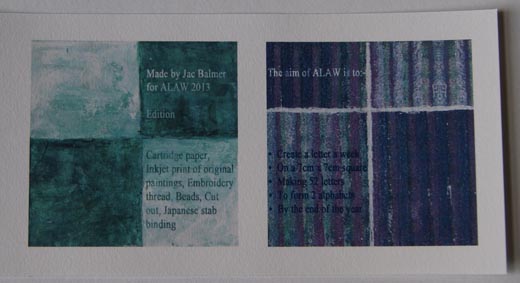
Calligraphytique Letter's #Week 26 First alphabet completed!
This first alphabet is completed! / Le premier alphabet est complet, avec le "Z"!
Je suis bien en retard pour terminer mes lettres de juin,
Une exposition à Chartres, puis vers chez moi, un petit voyage à Bruges en Belgique.
J'ai été très occupée...
Voici donc 4 lettres , et il n'en restera plus que 6.
Je commence aussi à réfléchir à la présentation finale...
Hello,
I am late to finish my letter of June
Exposure to Chartres, then to home, a trip to Bruges in Belgium.
I've been busy ...
Here are four letters, and it will remain more than six.
I'm also starting to think about the final presentation ...
The last six
are u, v, w, x, y and z.
I'm still playing around with a way to present all 26 together, and will post the result soon.
First alphabet finished
Here are the final letters. Separate....
And together.
I’ve used a simple Japanese stab binding to hold the pages
together.
Cranes in Flight
This is the idea I had from the beginning and I am pleased that I was able to achieve something close to what I had envisaged. Again it is with the thought of the origami crane being a symbol of peace through the inspiring story of Sadako Sasaki. In Hiroshima Peace Park there is a statue of Sadako holding a crane with the inscription:
'This is our cry,
This is our prayer,
Peace in the world.'
I have also incorporated one of Sadako's quotes in my presentation.
I have really enjoyed this challenge (although I can't seem to stop making cranes!).
I have decided to send my completed Alphabet, before the renovations of a house distract me too much.
As I look at them all together on one sheet, I think to myself, should I make a poster as the finished product?
you see the coward in me is resisting making a book...we shall wait and see, just in case, I become more courageous.
As I promised when I last put a full image of my work on ALAW, I now post another one, I'm hoping it fits, as I have not changed them from TIFF files, I found a JPEG...
Now my next journey is into PEACE.
Finishing with a rush and a roar!
I don't quite know what happened to May - I meant to get back and post my letters, but then, it was June and I hadn't. I figure I'm not alone.
I have also had trouble finding peace in the newspapers, but then yesterday and today I found four so I now think I will have enough to finish my alphabet, which is a big relief.
Here are the next letters, and I am pretty sure I should manage the final two in the next few weeks.
I am still pondering the final presentation - altho I think it will be quite simple.
Eureka, and a sudden rush of catch-up
I have not posted for many weeks, having bowed out of the challenge. I have, however, continued to observe all your excellent inspiring progress, and a small part of me regretted my personally sensible decision.
Then, as seems so often to occur, I stumbled across an idea which would enable me to try out an alphabet. One of my projects for a group of smaller works involves cut paper techniques with which I am not yet practically acquainted. I need to practise, and what better way to do so with the combination of straights, curves, and angles involved in cutting an alphabet!
The card that I decided to use is a surplus pile of postcards left over from my knitwear design era.
I started by cutting out a square of the required background size, drew the letter on the back and cut from the back also - with a scalpel. I must admit that I have some experience with using a scalpel from the 70s when I was in publishing, making design layouts and using Letraset (remember Letraset?). Indeed my scalpel is a Letraset scalpel.
Secondly I have completed the letters for my project. Now to start work on the presentation. Should be great fun.